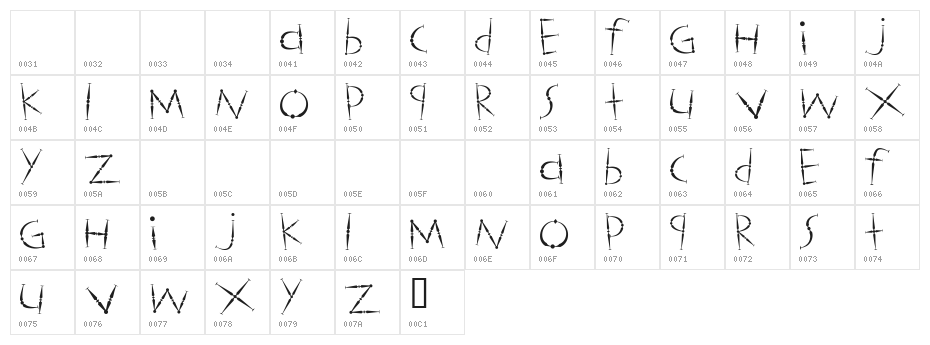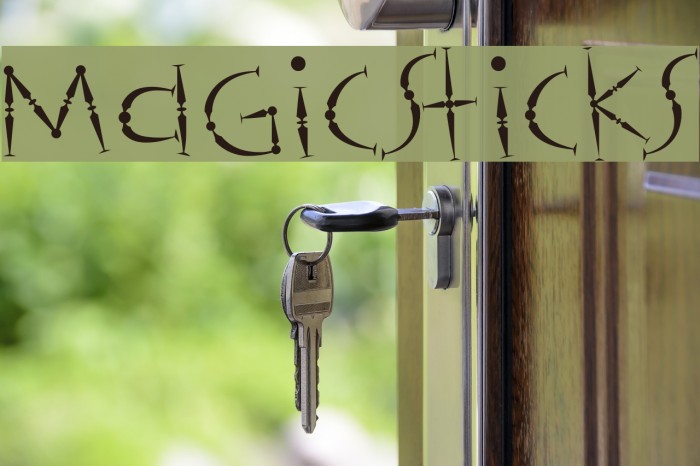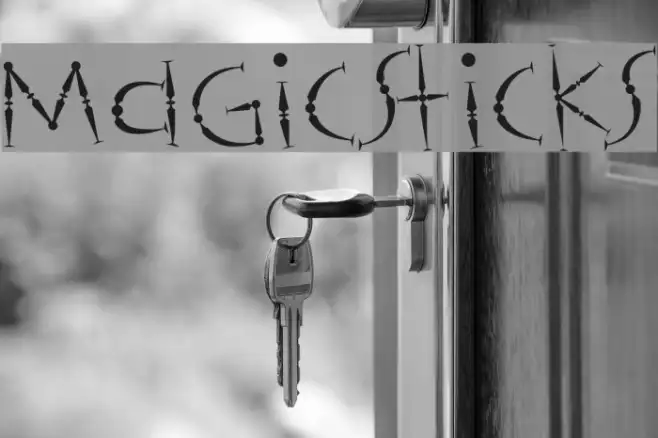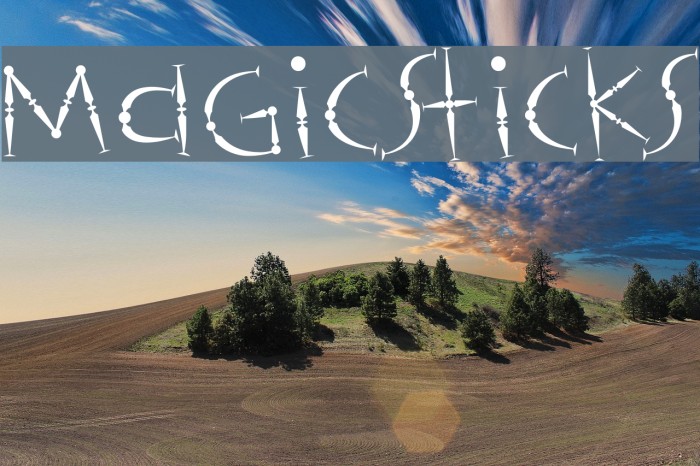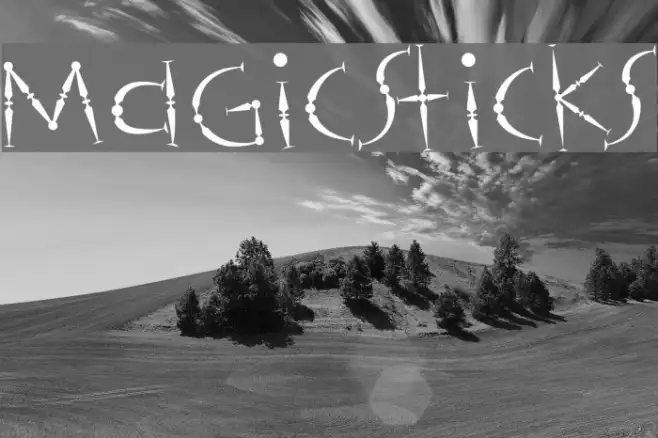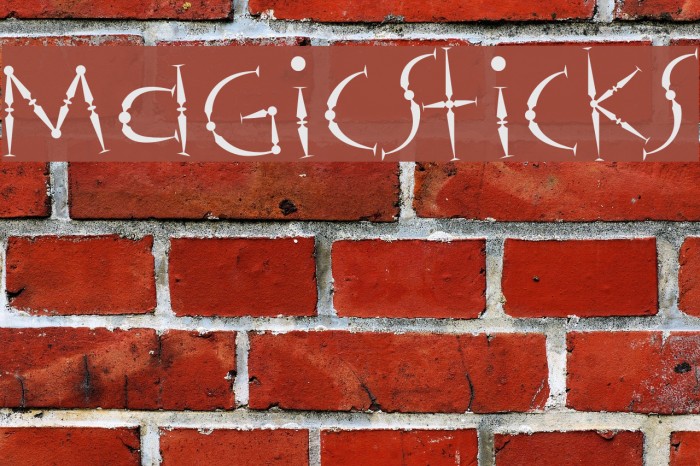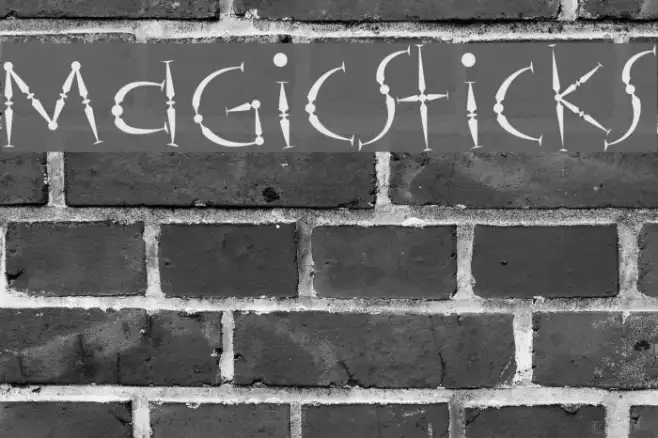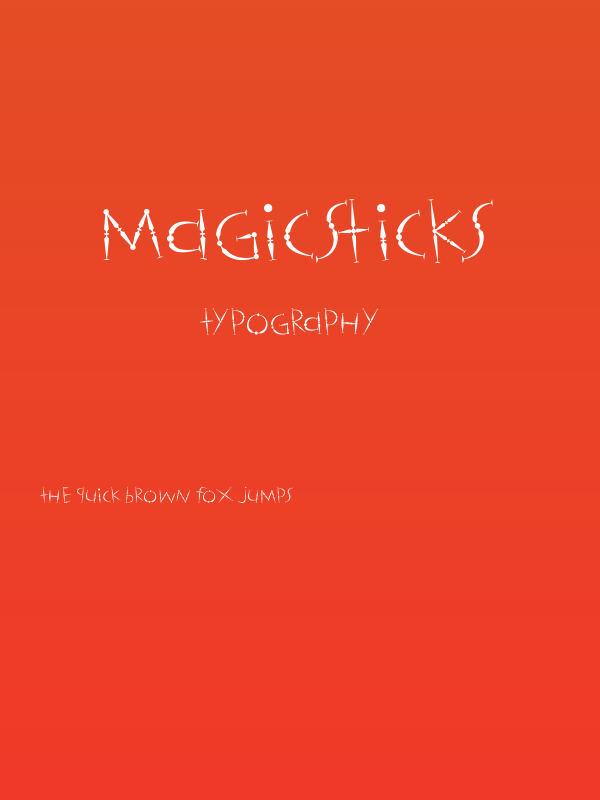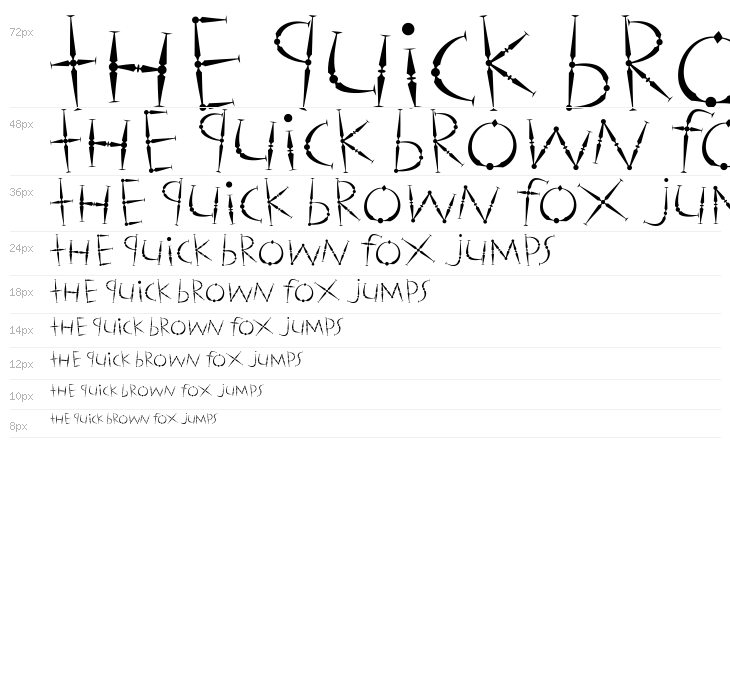
Magicsticks Font
Magicsticks Description
This font features a whimsical and playful design, with each character resembling a series of sticks or twigs connected by small dots. The letters have an irregular and hand-drawn appearance, giving them a unique and artistic flair. The strokes are thin and pointed, creating a sense of movement and energy. This font is particularly suitable for creative and informal projects, where a touch of fun and originality is desired. The overall look is both modern and slightly rustic, making it versatile for various design needs.
| Overall Style | Whimsical, Artistic |
| Proposed Projects | Ideal for children's book covers, playful branding, creative posters, and artistic invitations. |